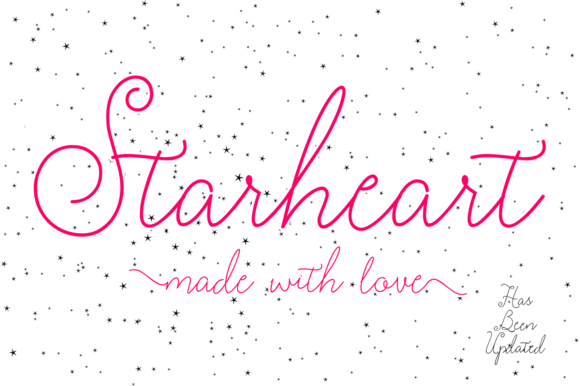
Ignite your creative spark with Starheart Font, a script typeface that exudes elegance and charm. BONJOURTYPE has meticulously crafted each letterform with a delicate touch of love, resulting in a font that dances across the page like a handwritten masterpiece.
Indulge in the beauty of Starheart's calligraphy lines, perfect for adding a touch of sophistication to your design projects. From the delicate curves of wedding invitations to the heartfelt messages of greeting cards, Starheart transforms words into art. Its graceful strokes bring a personal touch to logos, signatures, and watermarks, making your designs truly unique.
Starheart's versatility knows no bounds. Whether you're crafting stunning posters, eye-catching social media graphics, or simply adding a touch of elegance to your personal notes, this font is your perfect companion. Its enchanting flow adds a touch of whimsy to any project, capturing the attention of your audience and leaving a lasting impression.
With Starheart Font, you'll discover a world of creative possibilities. Its timeless beauty transcends trends, ensuring that your designs remain captivating for years to come. Dive into the world of Starheart and unlock the boundless potential of your creativity.